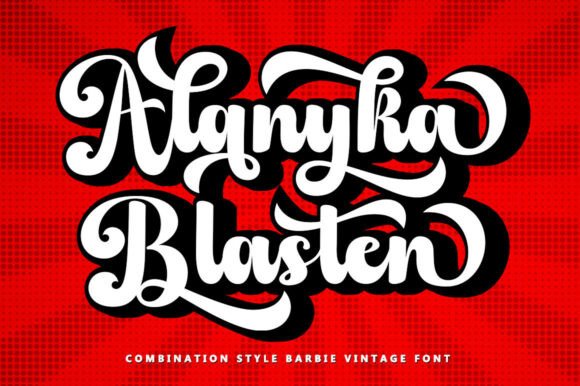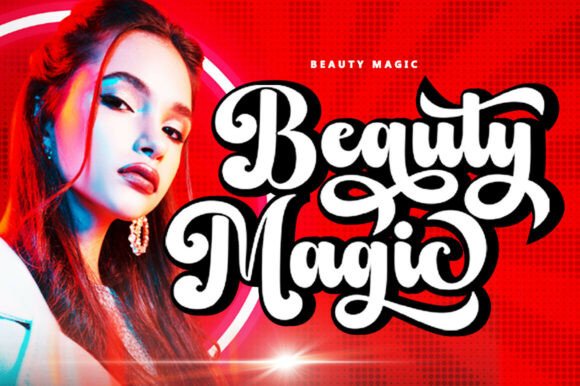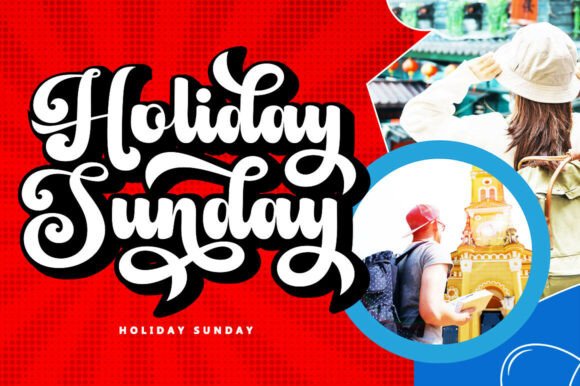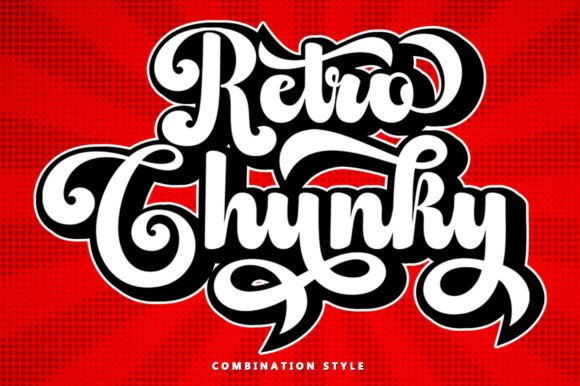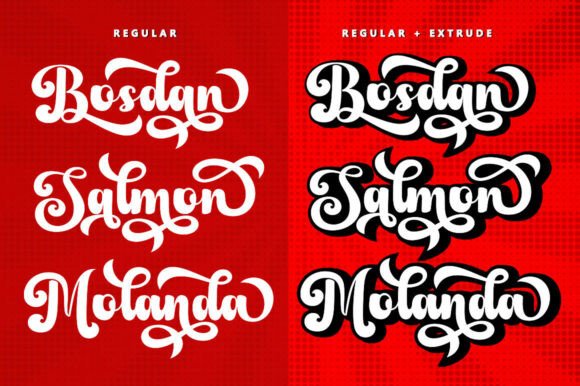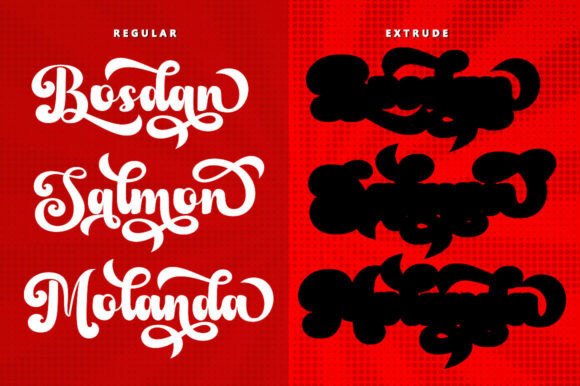
Unleash Your Inner Child: Discover the Magic of the Barbie Vintage Font
Do you remember the thrill of digging through your grandmother’s attic, unearthing old trinkets and dusty treasures that transported you back to a bygone era? For many creatives, that’s the spark that sets off a chain reaction of inspiration. You begin to envision the vibrant colors, playful patterns, and whimsical typography that defined the 1960s and 70s. If you’re looking to tap into that retro energy, you’re in luck! Introducing the Barbie Vintage Font, a bold and bubbly display script that’s sure to add a touch of nostalgia to your designs.
Perfect for designers seeking to infuse their work with a dash of vintage charm, the Barbie Vintage Font is a game-changer. Its thick, expressive swashes and heavy “Extrude” style create a 3D effect that’s simply irresistible. Whether you’re crafting nostalgic merchandise, designing eye-catching event posters, or creating social media graphics that pop, this font is sure to elevate your creative output.
Barbie Vintage Font Key Features
- Unique Characteristics: Distinctive, cursive script font with a touch of elegance and sophistication, reminiscent of the 1950s and 1960s
- Font Style: Script, Calligraphy
Barbie Vintage Font Review
I must say, I was quite excited to dive into the world of the “Barbie Vintage Font”. As a designer, I always look for unique and captivating fonts that can bring a touch of elegance and sophistication to any design project. And, in this case, I was not disappointed.
What works well: ✨ The font is undeniably reminiscent of the classic 50s and 60s style, which makes it perfect for projects that require a nostalgic or vintage vibe. The letterforms are clean and precise, making it easy to read and use in various design contexts. Additionally, the font is highly customizable, allowing designers to adjust the spacing, size, and color to fit their project’s requirements.
- Perfect for nostalgic or vintage-themed projects
- Clean and precise letterforms
However, there are a few limitations to consider: ⚠️ The font may not be the best choice for projects that require a modern or minimalist aesthetic. Additionally, some users may find the font to be too ornate or over-the-top, which can detract from the overall design.
Overall, I would give the “Barbie Vintage Font” 4 out of 5 stars. While it has its limitations, it is a unique and captivating font that can add a touch of elegance and sophistication to any design project. Just be sure to use it sparingly and in contexts where its vintage vibe will shine.
Tips for Getting the Most Out of the Barbie Vintage Font
Here are some tips to help you get the most out of the Barbie Vintage Font:
- Use the font in combination with other vintage-inspired elements to create a cohesive look.
- Use the font to create a sense of nostalgia or retro charm in your design.
The Barbie Vintage Font is perfect for:
- Creating vintage-inspired posters and advertisements.
- Designing retro-themed websites and social media graphics.
- Adding